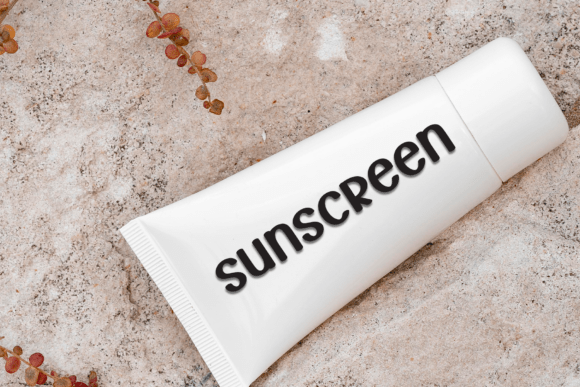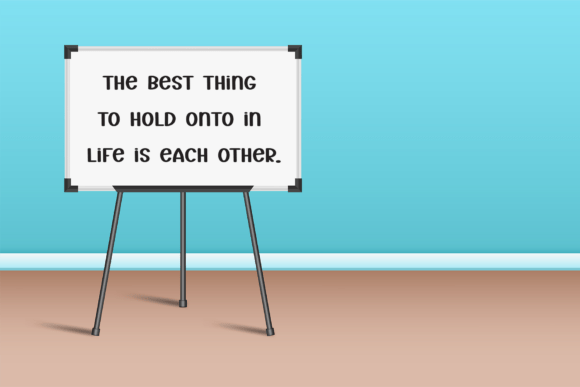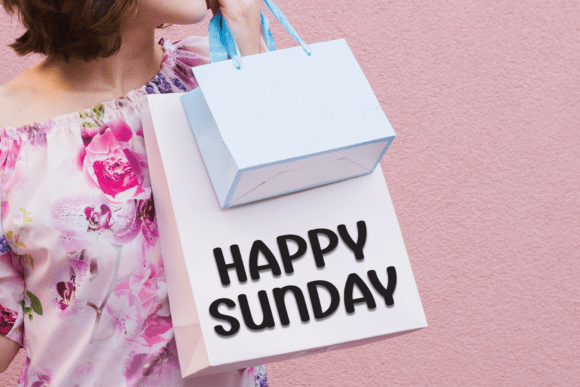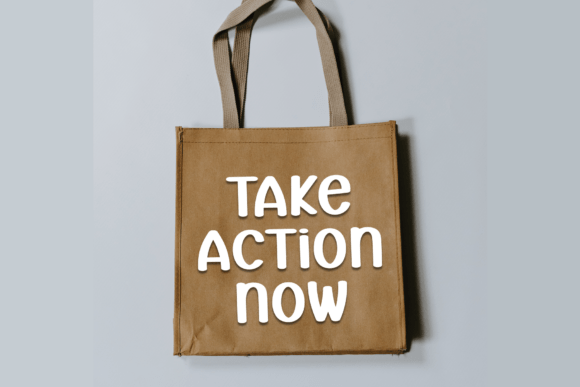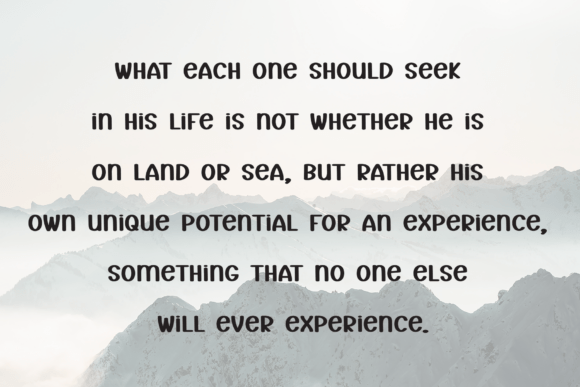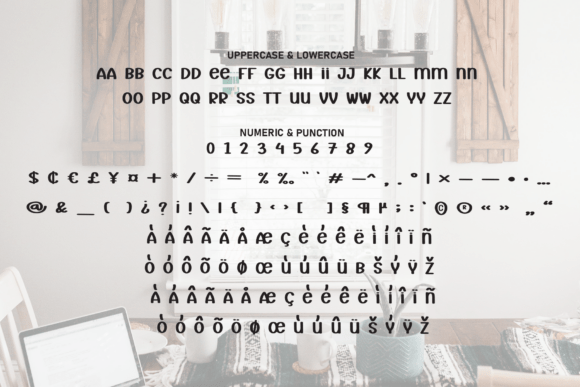
Discover the Charming Farmhouse Minimalist Font: Elevate Your Designs with Whimsy and Joy
Are you a designer or crafter looking for a font that can add a touch of warmth and playfulness to your creations? Look no further than the Farmhouse Minimalist Font! This delicate and affable handwritten display font is perfect for crafting heartfelt wedding invitations, heartwarming greeting cards, and engaging designs that require a sprinkle of joy and light-heartedness.
The Allure of Farmhouse Minimalist Font
The Farmhouse Minimalist Font is a beautifully crafted font that radiates a delightful and playful aura. Its darling and lively appeal makes it an ideal choice for designers and crafters who want to infuse fun and whimsy into their creative endeavors. Whether you’re working on a wedding invitation, a greeting card, or a social media graphic, this font is sure to add a touch of charm and personality to your design.
Perfect for Heartfelt Wedding Invitations and Greeting Cards
Wedding invitations and greeting cards are special occasions that require a font that can convey warmth, love, and joy. The Farmhouse Minimalist Font is perfectly suited for these types of designs, with its elegant and playful script that can add a touch of romance and whimsy to your creations. Imagine being able to create beautiful, one-of-a-kind wedding invitations that set the tone for a joyful and unforgettable celebration!
Adding a Sprinkle of Joy and Light-Heartedness to Your Designs
The Farmhouse Minimalist Font is designed to bring a sense of joy and light-heartedness to your designs. Its lively and playful appeal makes it perfect for creating engaging designs that require a touch of whimsy and fun. Whether you’re working on a social media graphic, a blog post, or a marketing campaign, this font is sure to add a dash of personality and charm to your design.
Key Features of the Farmhouse Minimalist Font
• Delicate and affable handwritten display font: The Farmhouse Minimalist Font is a beautifully crafted font that features delicate and affable handwritten script.
• Playful and whimsical appeal: This font has a playful and whimsical appeal that makes it perfect for designs that require a touch of fun and personality.
• Perfect for wedding invitations and greeting cards: The Farmhouse Minimalist Font is ideal for wedding invitations and greeting cards, with its elegant and playful script.
• Easy to use and versatile: This font is easy to use and versatile, making it perfect for a wide range of design projects.
Tips for Using the Farmhouse Minimalist Font
Here are some tips for using the Farmhouse Minimalist Font in your designs:
• Pair with complementary fonts: Pair the Farmhouse Minimalist Font with complementary fonts to create a unique and visually appealing design.
• Use for headlines and titles: Use the Farmhouse Minimalist Font for headlines and titles to add a touch of whimsy and personality to your design.
• Experiment with colors and textures: Experiment with different colors and textures to add depth and interest to your design.
The Farmhouse Minimalist Font is a charming and versatile font that is perfect for designers and crafters who want to add a touch of whimsy and joy to their creations. With its delicate and affable handwritten display script, playful and whimsical appeal, and ease of use, this font is sure to become a favorite in your design toolkit. So why wait? Download the Farmhouse Minimalist Font today and start creating beautiful, one-of-a-kind designs that are sure to delight!
Whether you’re a seasoned designer or a crafty DIY enthusiast, the Farmhouse Minimalist Font is the perfect choice for any design project that requires a touch of warmth, personality, and whimsy. So go ahead, get creative, and let the Farmhouse Minimalist Font help you bring your design vision to life!